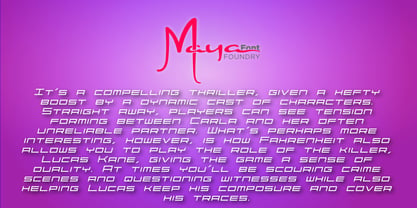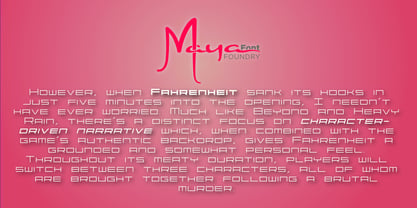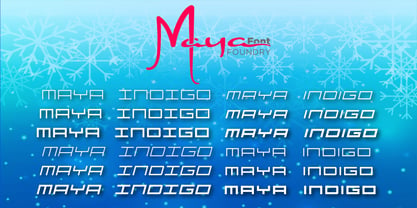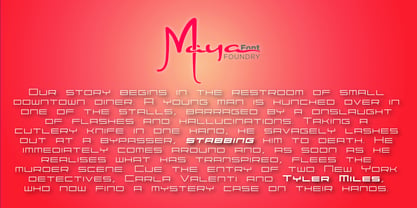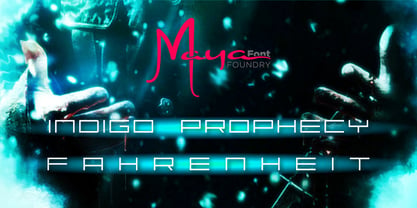
Maya Indigo
von MayaFont
Die Schriftfamilie Maya Indigo wurde von Mohan Samarasinghe entworfen und von MayaFont veröffentlicht. Maya Indigo enthält 6 Stile und Familienpaketoptionen. Mehr über diese Familie
Explore a distinctive geometric font inspired by the iconic title font style seen on the cover art of the of Quantic Dream's popular video game, 'Indigo Prophecy / Fahrenheit'. After an extensive search through the internet to find the original font, I was disappointed and decided to create this homage. This font features an expanded glyph set and multiple styles, including italic, bold, and bold-italic, alongside the regular style, significantly enhancing creative possibilities. The design incorporates both uppercase and lowercase letters, offering two variations of the letter 'I' to suit different design languages. Each letter maintains a uniform stem width, allowing for versatile combinations of uppercase and lowercase letters, or can be utilized as small caps for a cohesive look.